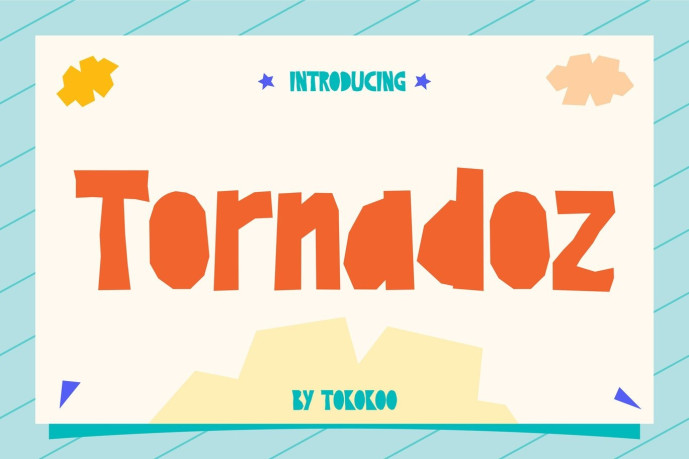
Tornadoz Font
Designer: Tokokoo
Tornadoz Font is a playful chunky display typeface for kids branding and joyful visuals, built with bold shapes, soft curves, and an energetic rhythm that feels friendly and expressive. Its big proportions and low contrast strokes create letters that feel lively without losing clarity. Designed to spark imagination, Tornadoz brings warmth and personality to every message.
Tornadoz helps designers turn simple words into attention-grabbing, kid-friendly headlines. Ideal for kids books, playful posters, packaging, event banners, and social media graphics, this typeface supports designs that aim to feel fun, bold, and approachable. Its cheerful structure connects instantly with young audiences and playful brands.